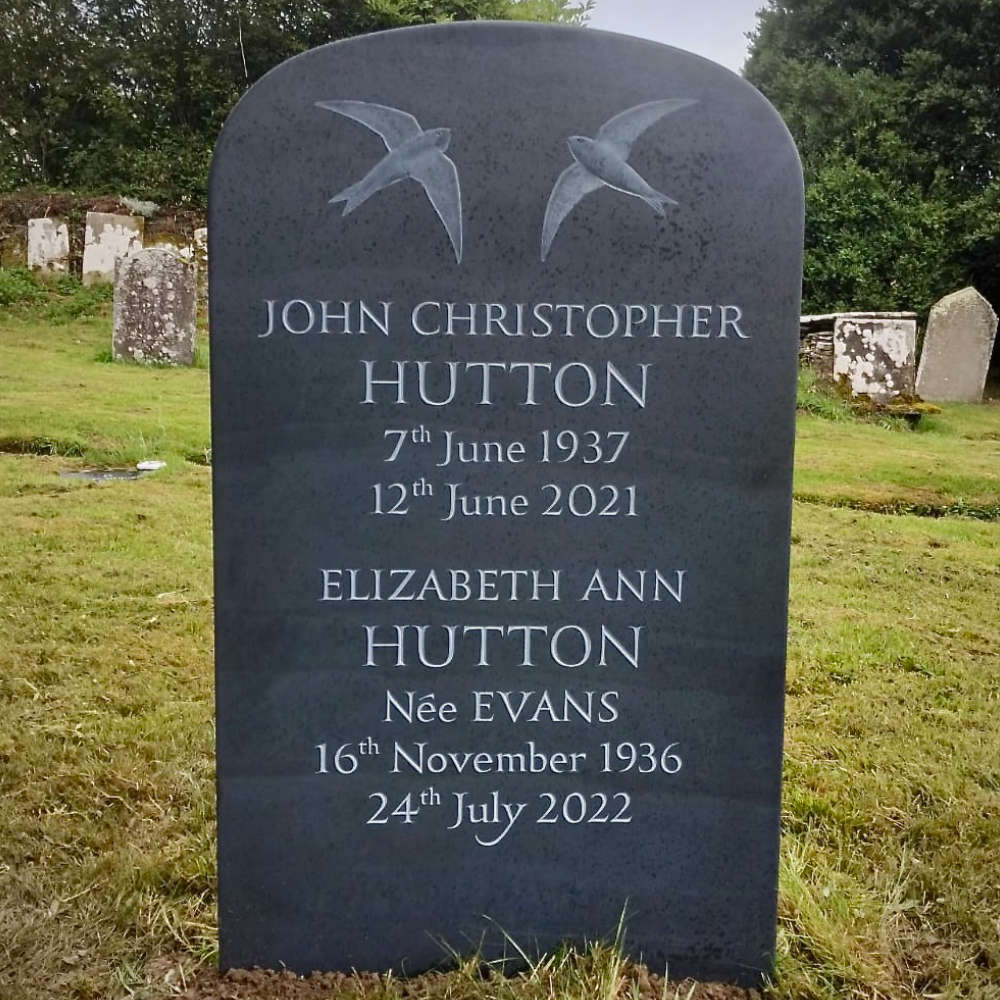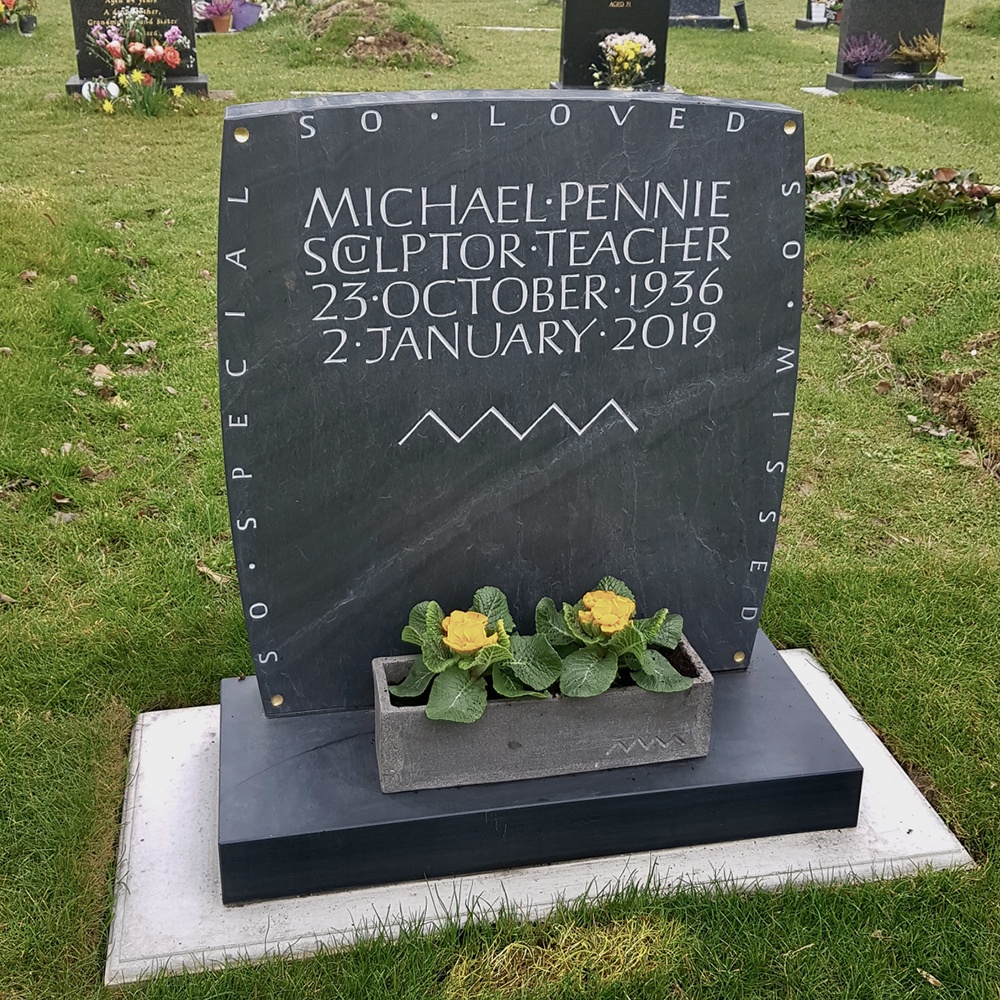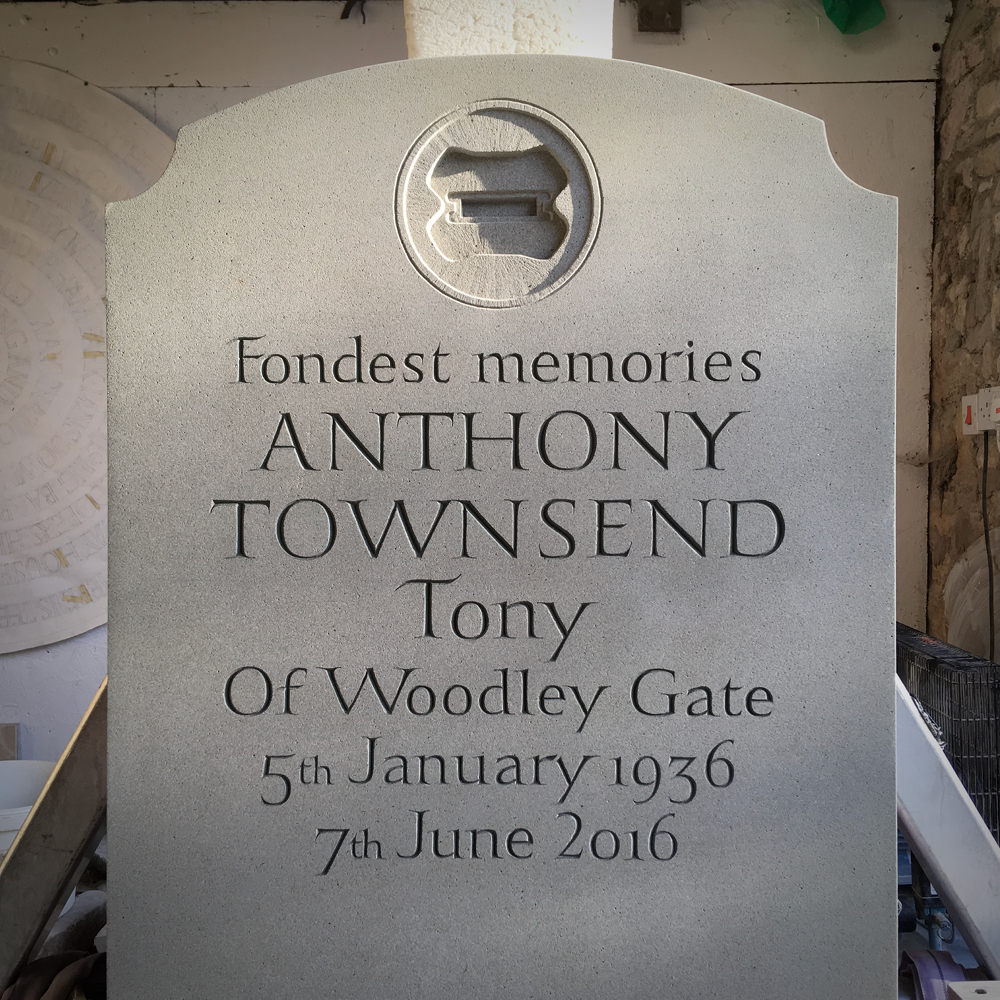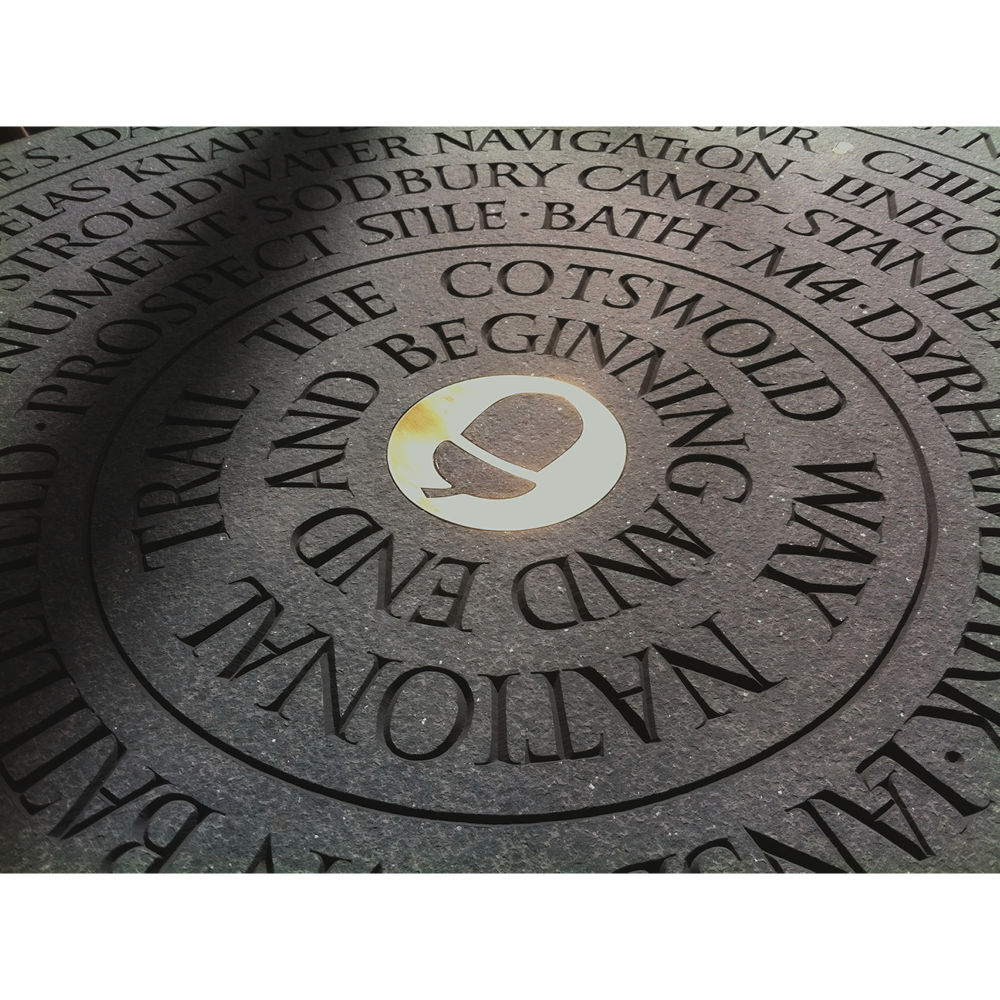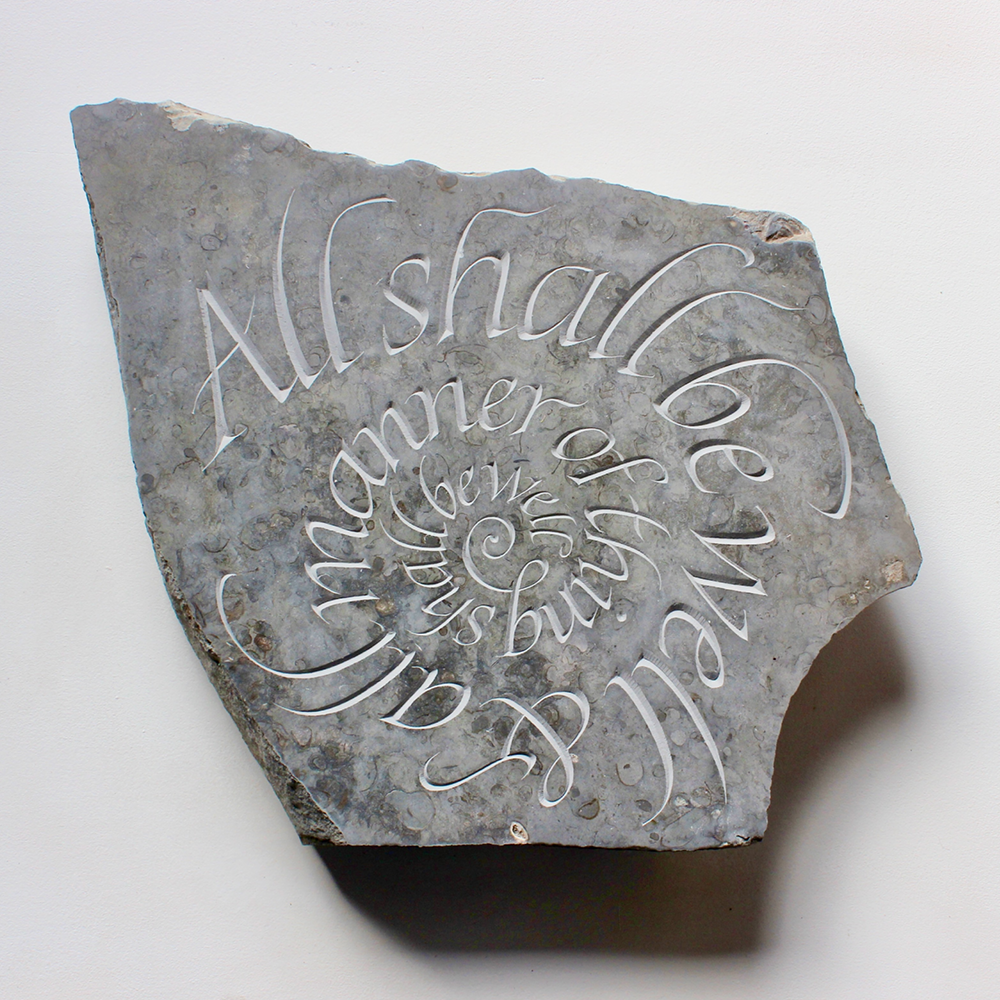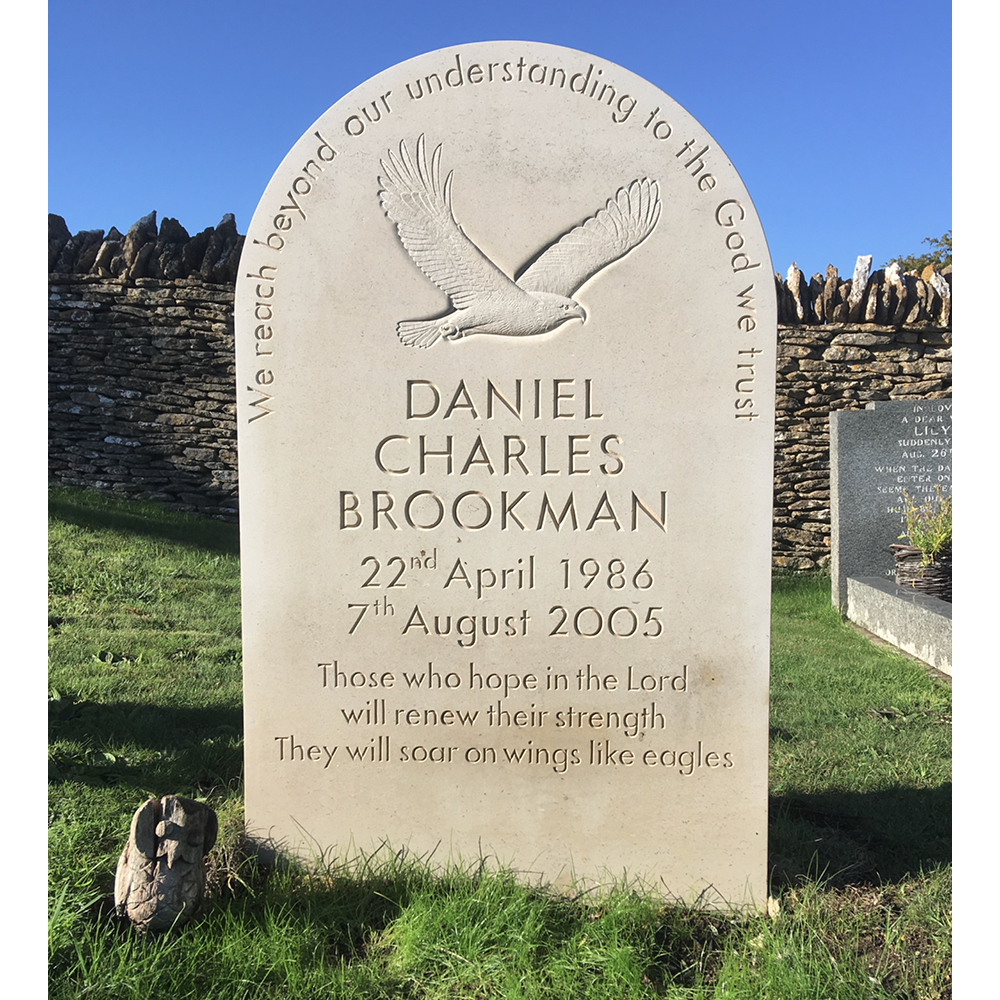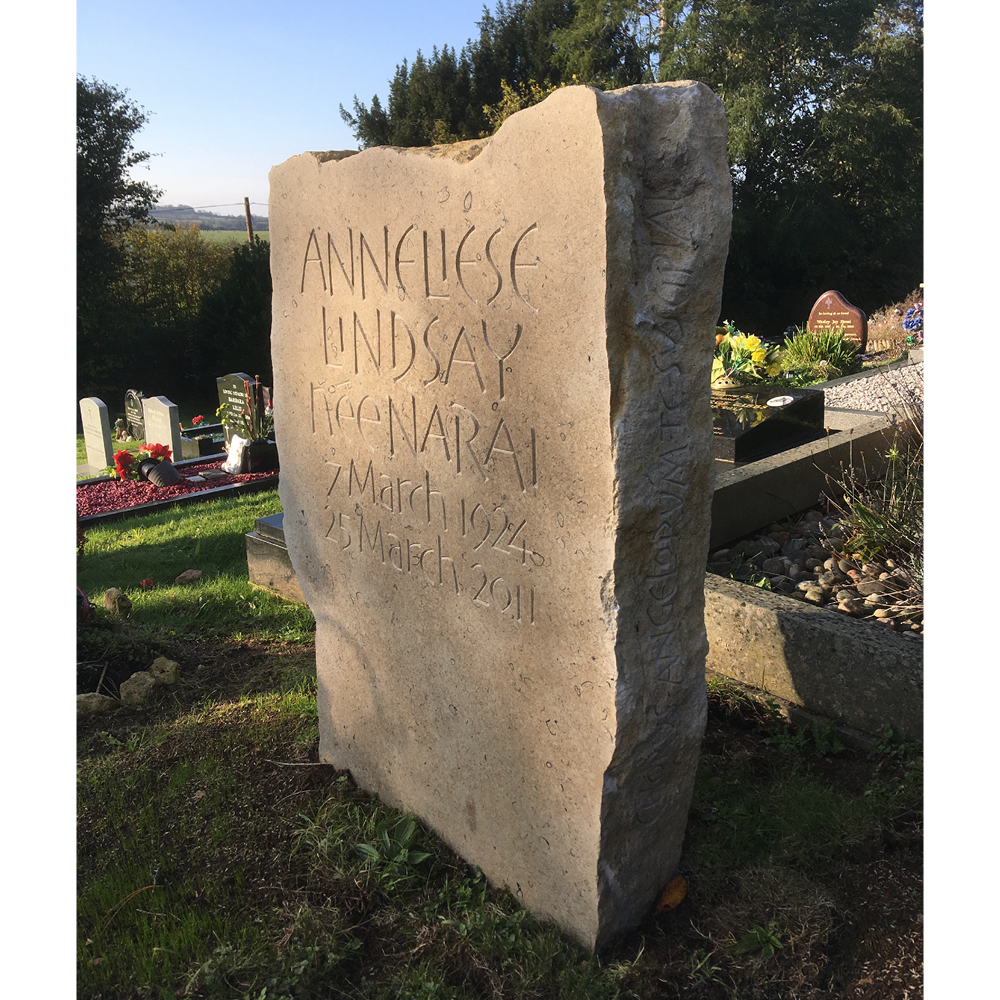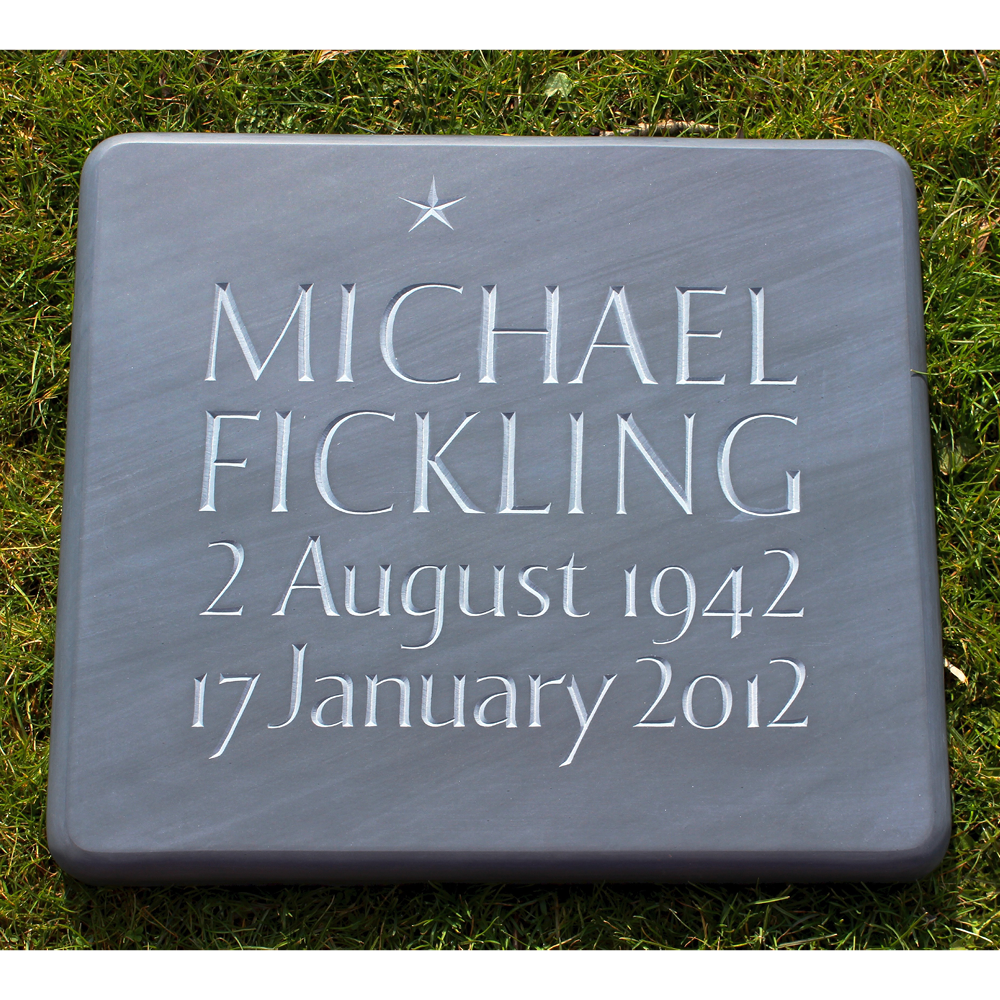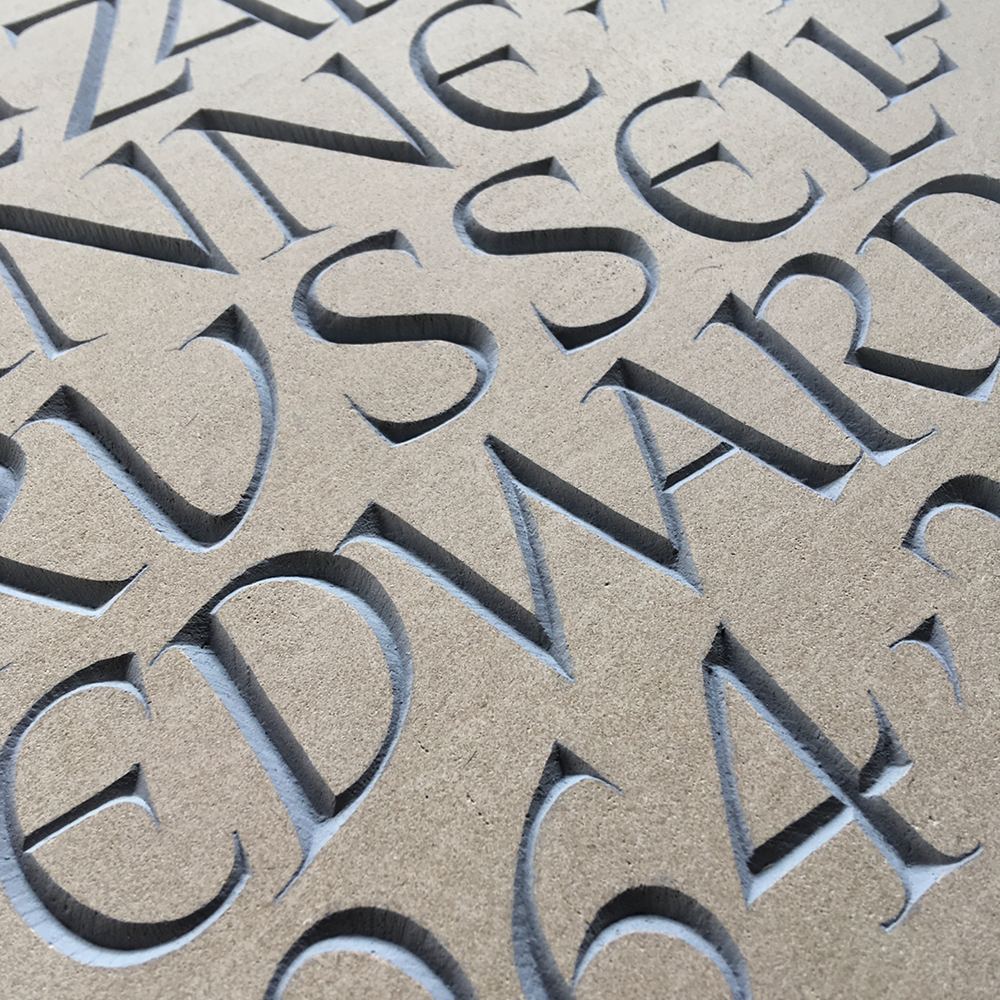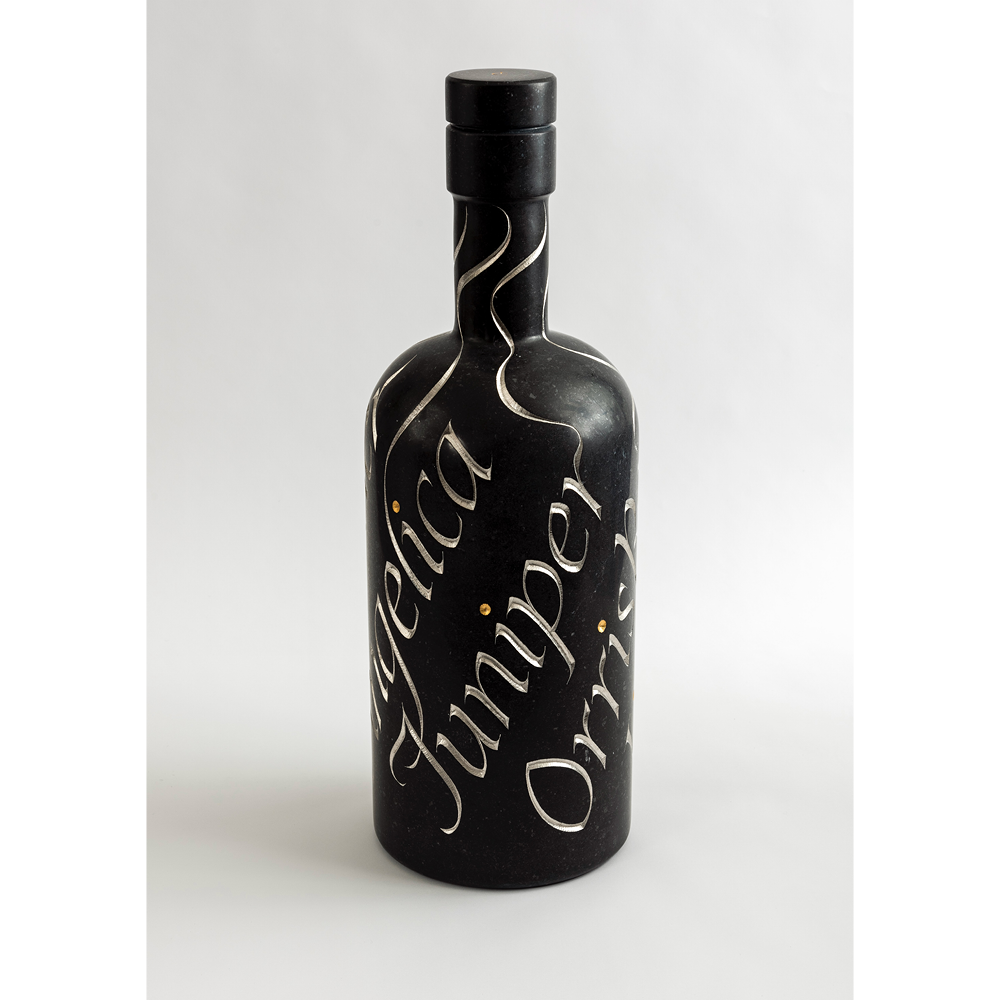
I specialise in hand-carved lettering, stone carving, and sculpture. I work from a solar-powered studio on the beautiful Radford Mill organic farm near Bath in the South West of England. I make headstones, cremation tablets, house signs, and sculptures for the home and garden. I also make art for the public realm and fine art. I work mostly in British and Irish limestones, sandstones and slates.
Customers have included The Nation Trust, Bath Abbey, Bath Preservation Trust, The Cotswold Way National Trail, Prior Park College, Winchester College, The Stillbirth and Neonatal Death charity, and the Lettering Arts Trust. My work has found its way into private collections in America, Japan, France, Malaysia, and the UK. My headstones and cremation tablets can be found in cemeteries and churchyards across the UK. I design and carve my own letters by hand because I want them to be beautiful, unique and full of life.